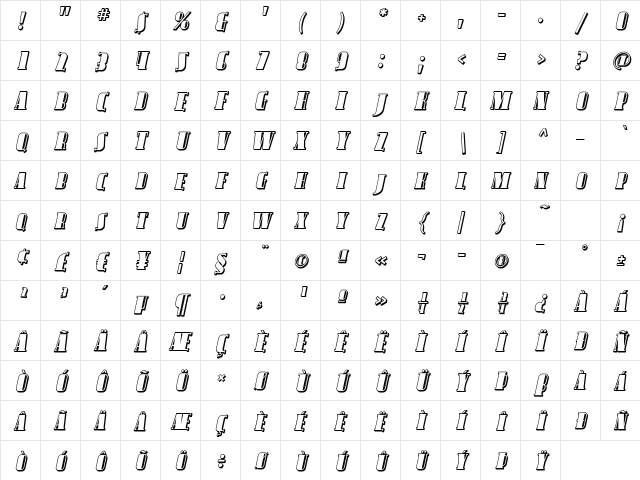
Avondale SC Shaded Italic
Designer: Derek Vogelpohl
Design Context for Avondale SC Shaded
Avondale SC Shaded is a composed and adaptable typeface that performs quietly and consistently across a wide range of design contexts. The slanted form adds forward momentum and visual energy.
Pro Tip: Use Avondale SC Shaded for emphasis, pull quotes, and subheadings where its slanted energy can add rhythm to the layout.